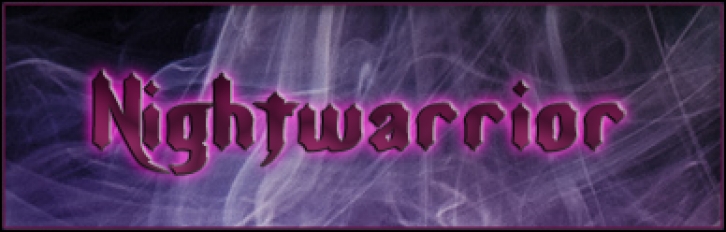
This is a commissioned font with a gothic theme for a French vampire-like RPG (now, sadly defunct). Includes full alphabet, extended characters, and Euro.